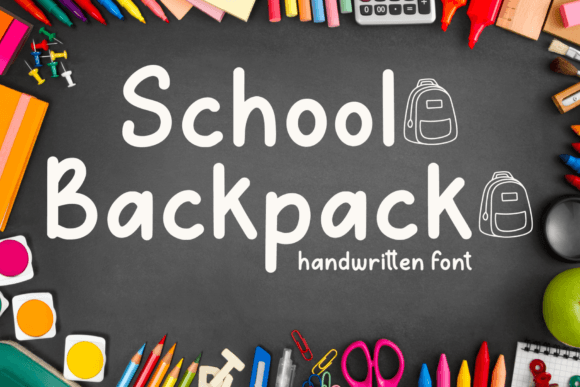
Introducing School Backpack Font: The Perfect Choice for Your Creative Projects
Are you looking for a font that can add a touch of playfulness and nostalgia to your designs? Look no further than the School Backpack font. This simple handwritten font with a single line is casual, cute, and fun, making it perfect for a wide range of creative projects.
What is School Backpack Font?
School Backpack is a unique and charming font that is designed to evoke a sense of warm nostalgia. Its playful curves and genuine charm make it an excellent choice for projects related to school designs, birthday invitations, summer designs, mug designs, crafting, stickers, sublimations, and much more.
Key Features of School Backpack Font
- Simple Handwritten Design: School Backpack font features a simple handwritten design with a single line, giving it a clean and effortless look.
- Casual and Cute: The font has a casual and cute appearance, making it perfect for projects that require a playful touch.
- Playful Curves: The font features playful curves that add to its charm and make it stand out from other fonts.
- Genuine Charm: School Backpack font has a genuine charm that evokes a sense of warm nostalgia, making it perfect for projects that require a personal touch.
Use Cases for School Backpack Font
- School Designs: The font is perfect for school designs, such as posters, flyers, and brochures.
- Birthday Invitations: School Backpack font can add a playful touch to birthday invitations, making them more appealing to kids and adults alike.
- Summer Designs: The font is ideal for summer designs, such as beach-themed posters, flyers, and social media graphics.
- Mug Designs: School Backpack font can be used to create fun and playful mug designs that make great gifts.
- Crafting: The font is perfect for crafting projects, such as making DIY cards, gift tags, and scrapbooking.
- Stickers: School Backpack font can be used to create fun and playful stickers that kids will love.
- Sublimations: The font is ideal for sublimation projects, such as customizing t-shirts, tote bags, and other products.
Benefits of Using School Backpack Font
- Unique and Playful Design: The font features a unique and playful design that can add a touch of personality to your projects.
- Easy to Read: School Backpack font is easy to read, making it perfect for projects that require a clear and concise message.
- Versatile: The font is versatile and can be used for a wide range of creative projects.
- Nostalgic Feel: School Backpack font has a nostalgic feel that can evoke a sense of warmth and familiarity.
School Backpack font is a unique and charming font that can add a touch of playfulness and nostalgia to your creative projects. Its simple handwritten design, playful curves, and genuine charm make it perfect for a wide range of projects, from school designs to crafting and sublimations. With its ease of use and versatility, School Backpack font is an excellent choice for designers, crafters, and anyone looking to add a personal touch to their projects.